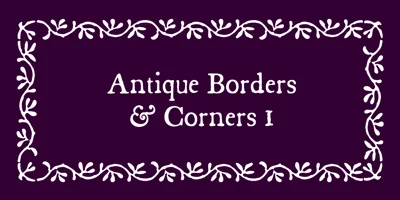
Antique Borders & Corners 1 Font
Antique Borders & Corners 1 Font is ideal for vintage certificate designs, classical document frames, ornate wedding invitations, historical reproduction materials, elegant diploma layouts, traditional book covers, antique-style packaging, heritage brand communications, museum exhibition labels, and sophisticated decorative projects. This ornamental typeface creates timeless Victorian elegance in both formal print and digital heritage applications.
What makes Antique Borders & Corners 1 Font exciting is its exquisite collection of authentic Victorian-era decorative elements with meticulously crafted ornamental details. The font features elaborate border designs, intricate corner flourishes, and classical ornaments that evoke the grandeur of 19th-century decorative arts. Its sophisticated ornamental character establishes an atmosphere of historical elegance and refined craftsmanship that appeals to audiences appreciating authentic period design.
Antique Borders & Corners 1 Font family includes decorative elements: Corner pieces, Border segments, Ornamental dividers, Flourish accents, and Frame components in various ornate styles. Each element maintains authentic Victorian character while providing designers with comprehensive options for creating elegant decorative typography systems and classical presentation materials.
This distinguished ornamental typeface brings authentic period sophistication to projects requiring historical presentation. Whether you're designing heritage documents, classical branding, or elegant ceremonial materials, Antique Borders & Corners 1 Font delivers exceptional ornamental beauty and Victorian authenticity. The font's intricate details and classical proportions ensure memorable elegance across various formal applications.
Heritage designers and classical institutions recognize how Antique Borders & Corners 1 Font perfectly captures the essence of Victorian decorative arts and period craftsmanship. Its authentic ornamental foundation combined with versatile elements makes it essential for classical and heritage design projects. Download today and frame your designs with this exceptionally elegant Victorian typography.